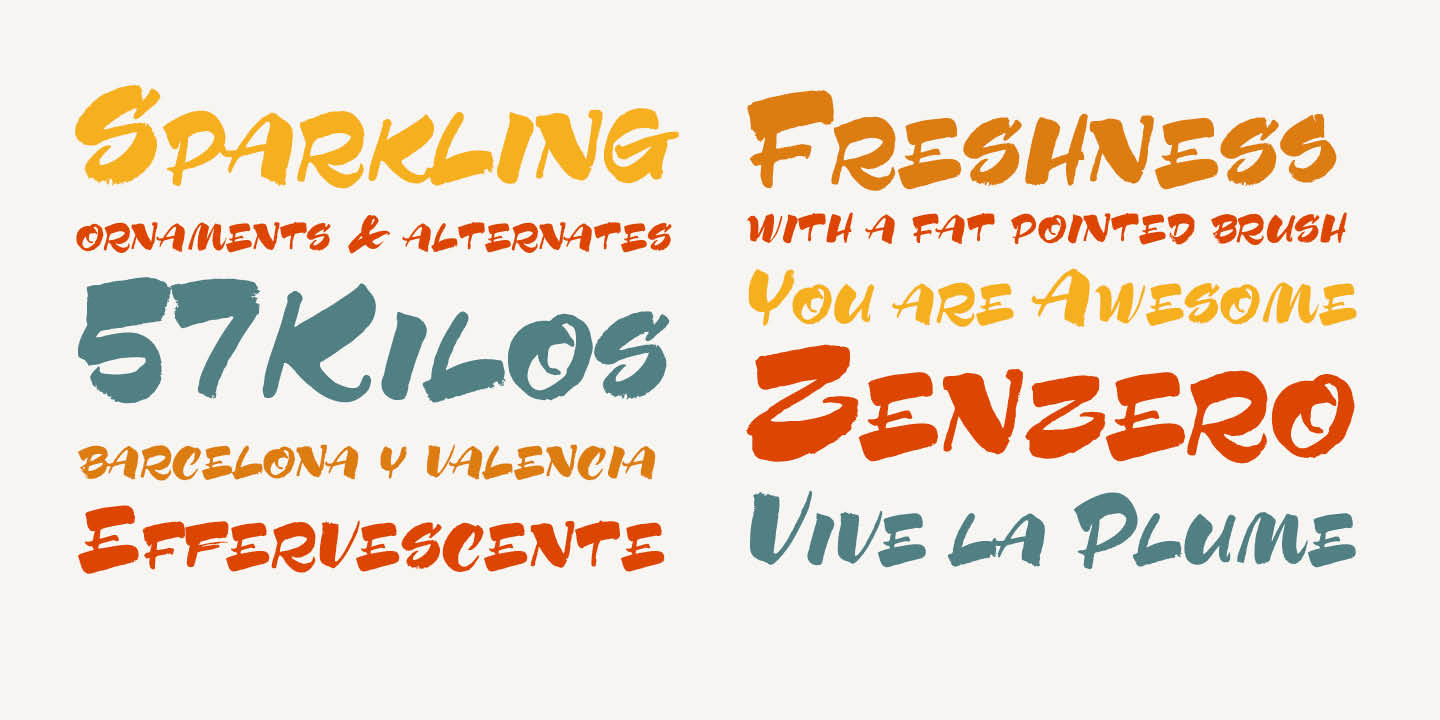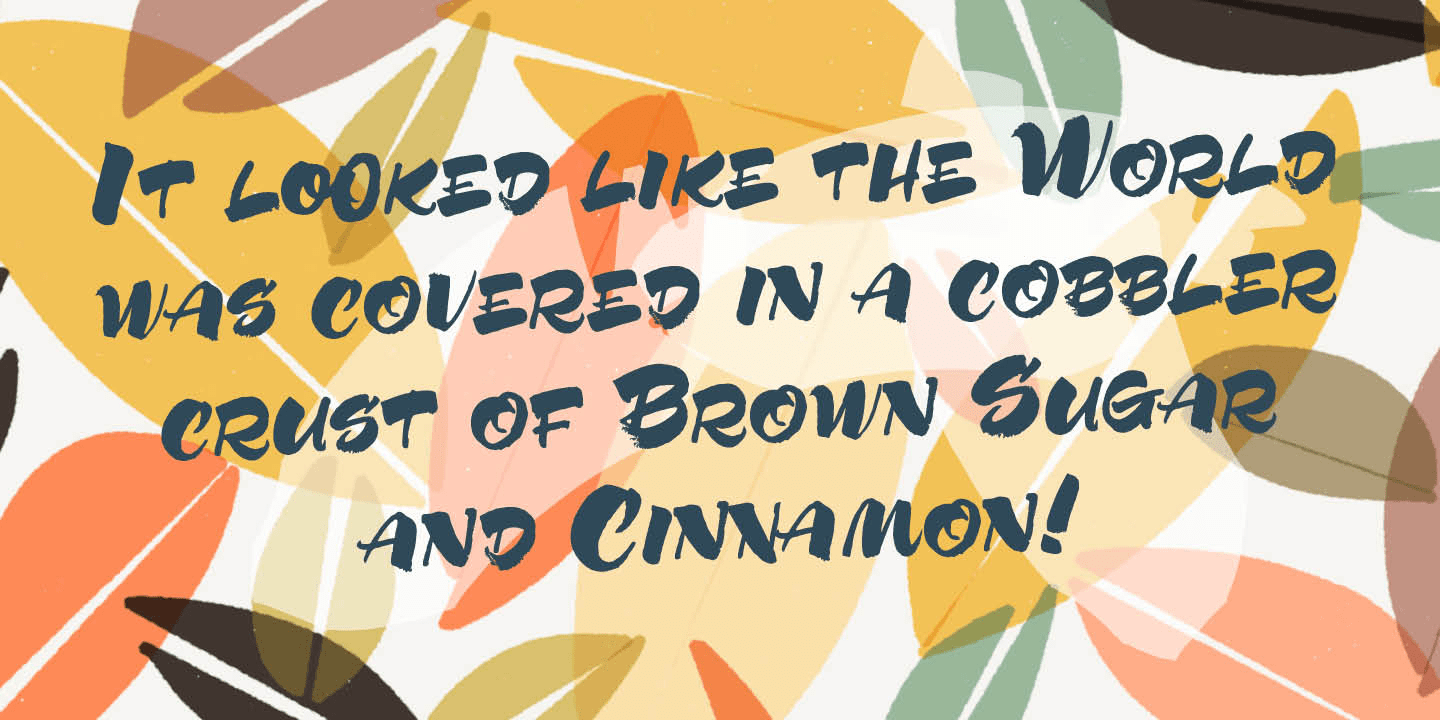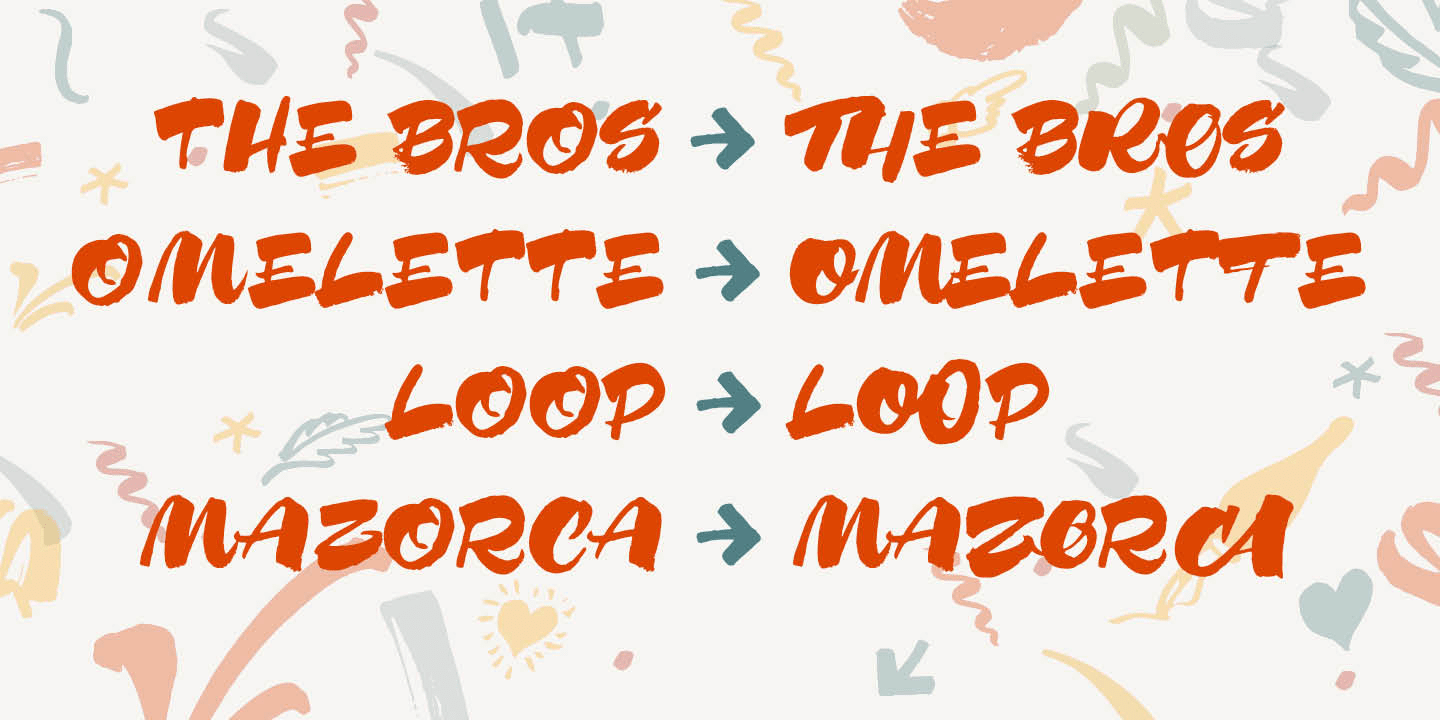
Mela Pro was created with a pointed brush and walnut ink using thick brushstrokes. The original idea was to make a kind of urban graffitti with a fat brush, but the final result is more refined and elegant. Something new – light and bold together. The…